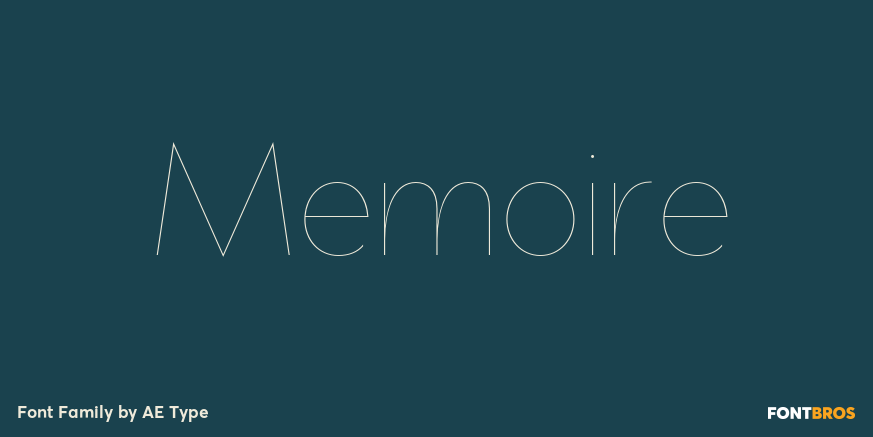
Memoire
About Memoire
Memoire is an elegant linear hairline contemporary sans. It is based on the underlying form of Vanitas, yet is rendered in a nearly monolinear hairline weight. Memoire is intended to be used selectively for headline use starting at 60pt and above.Stylistically,…